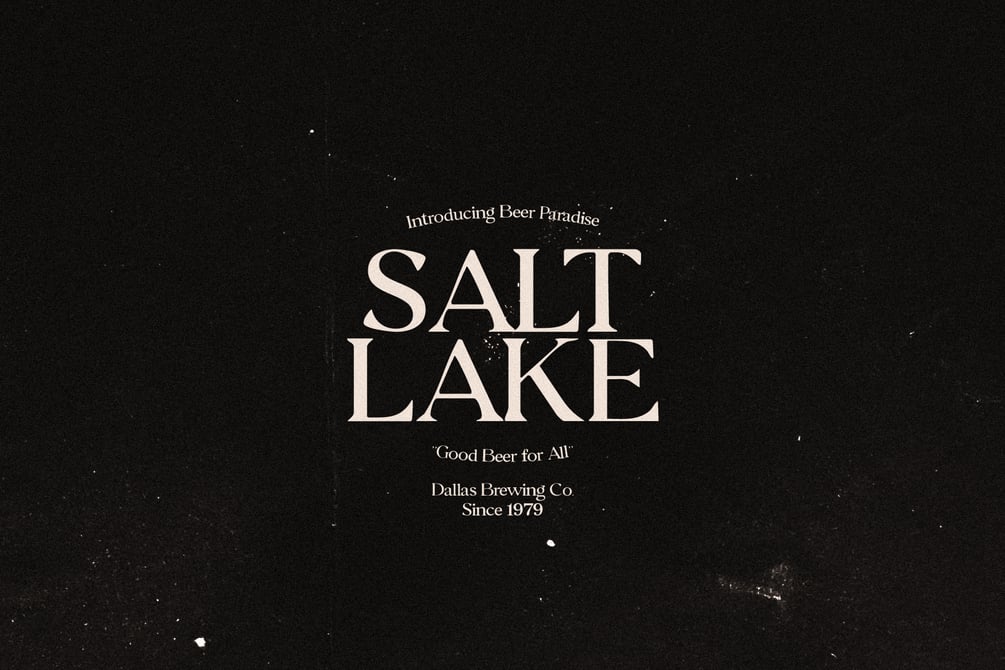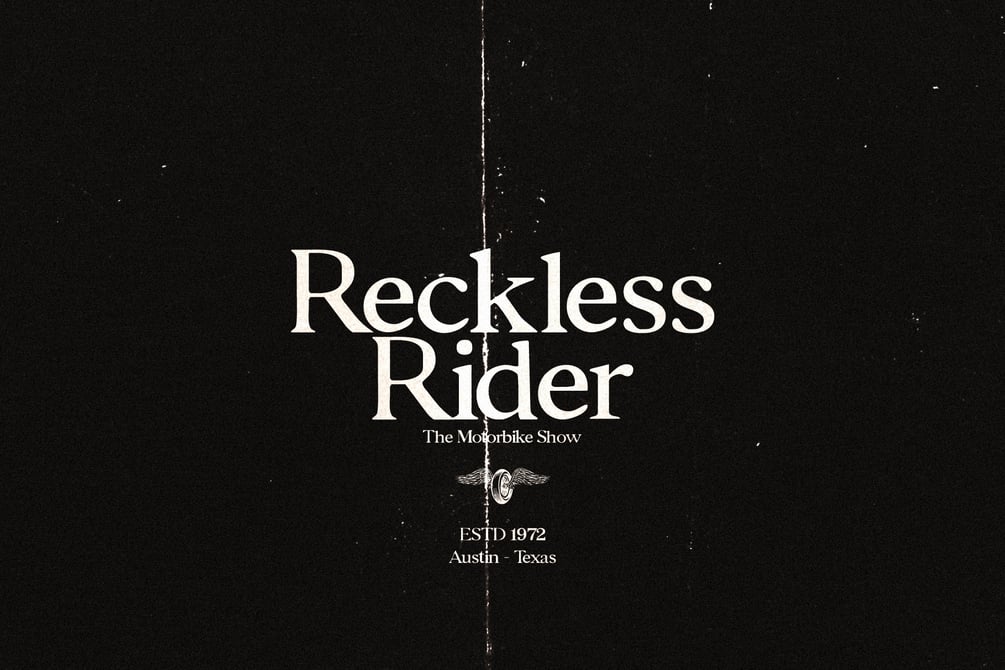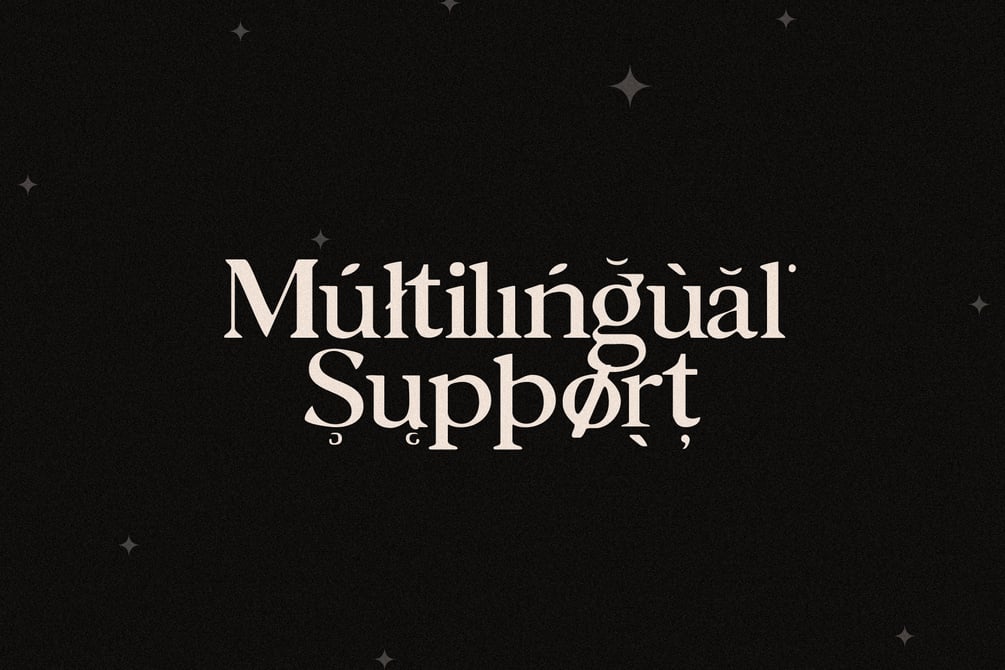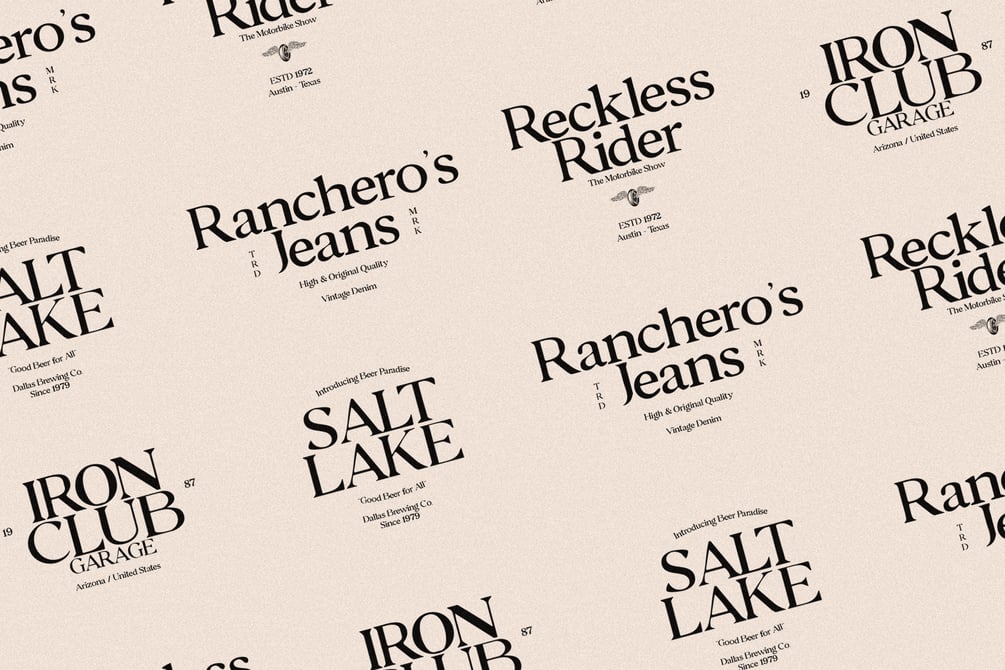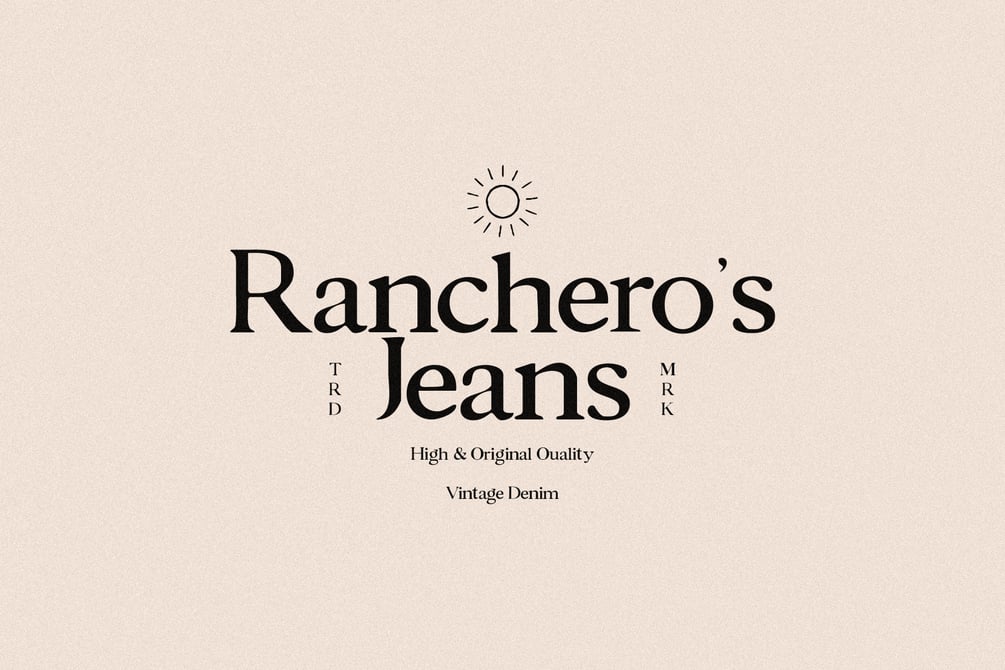
Stargaze Free Font
Stargaze is a vintage serif typeface inspired by classic astronomy prints, old book typography, and timeless editorial design. Featuring elegant serifs, balanced proportions, and subtle retro details, it evokes a sense of curiosity, wonder, and old-world craftsmanship. Ideal for logos, posters, book covers, branding, packaging, and editorial layouts, Stargaze brings a nostalgic yet sophisticated character - perfect for designs that aim to feel timeless, thoughtful, and rich with story.